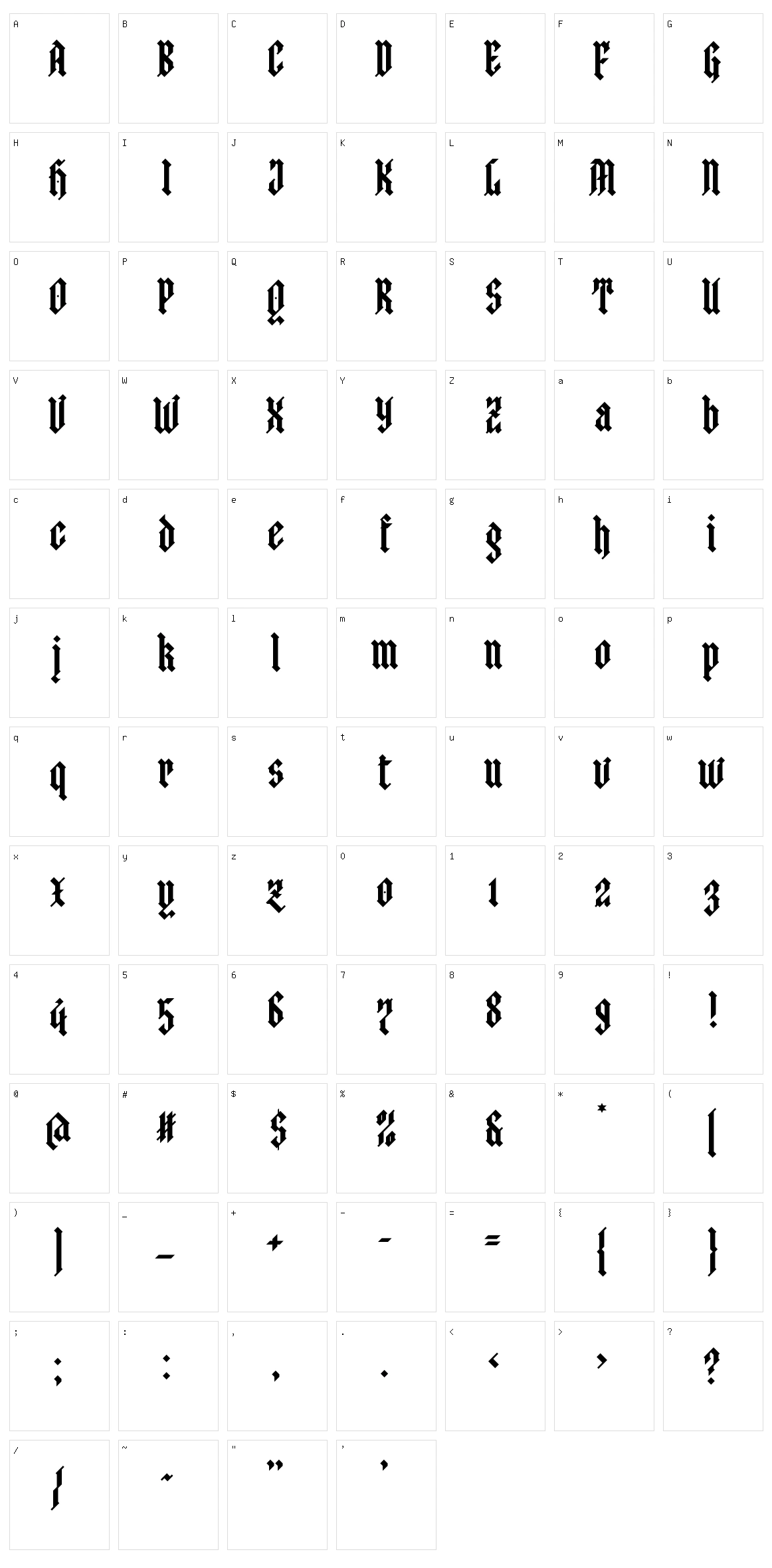
The free font Zinople eYe FS is carefully designed by elmoyenique, showcasing a thoughtful balance of creativity and usability and belongs to the Gothic font family. When you download the ZIP file, it contains only 8.06 KB of font files, making it lightweight and quick to download. Please review the license details below to understand permitted usage and distribution rights. If license information is not available, we recommend using this font for personal projects only or contacting the author directly for commercial usage permissions.